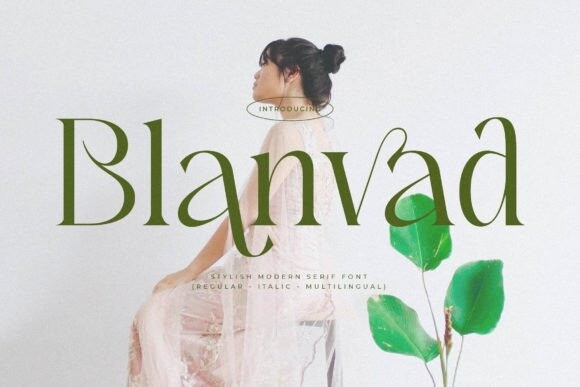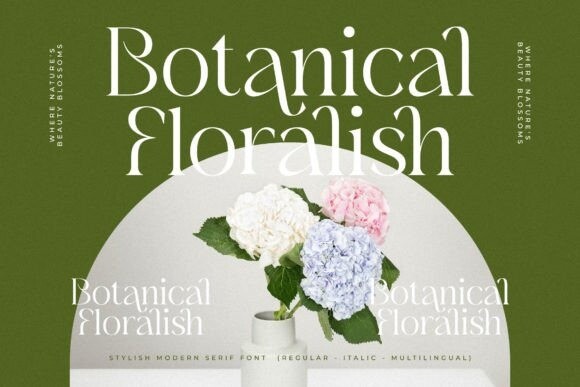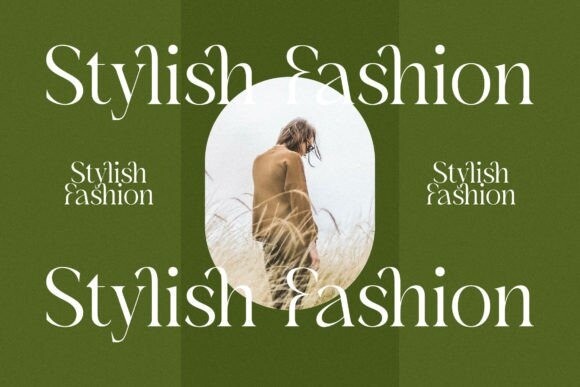
Blanvad Font
Blanvad Font is a modern and classic serif typeface that has its own unique style. This typeface is perfect for an elegant & luxurious logo, book or movie title design, fashion brand, magazine, clothes, lettering, quotes, and so much more.